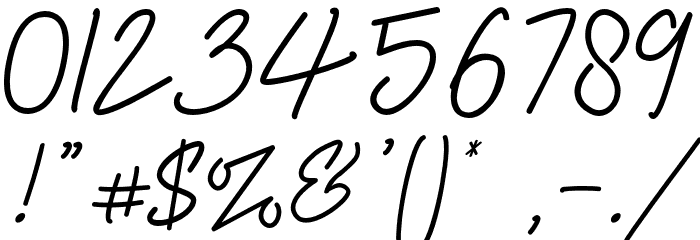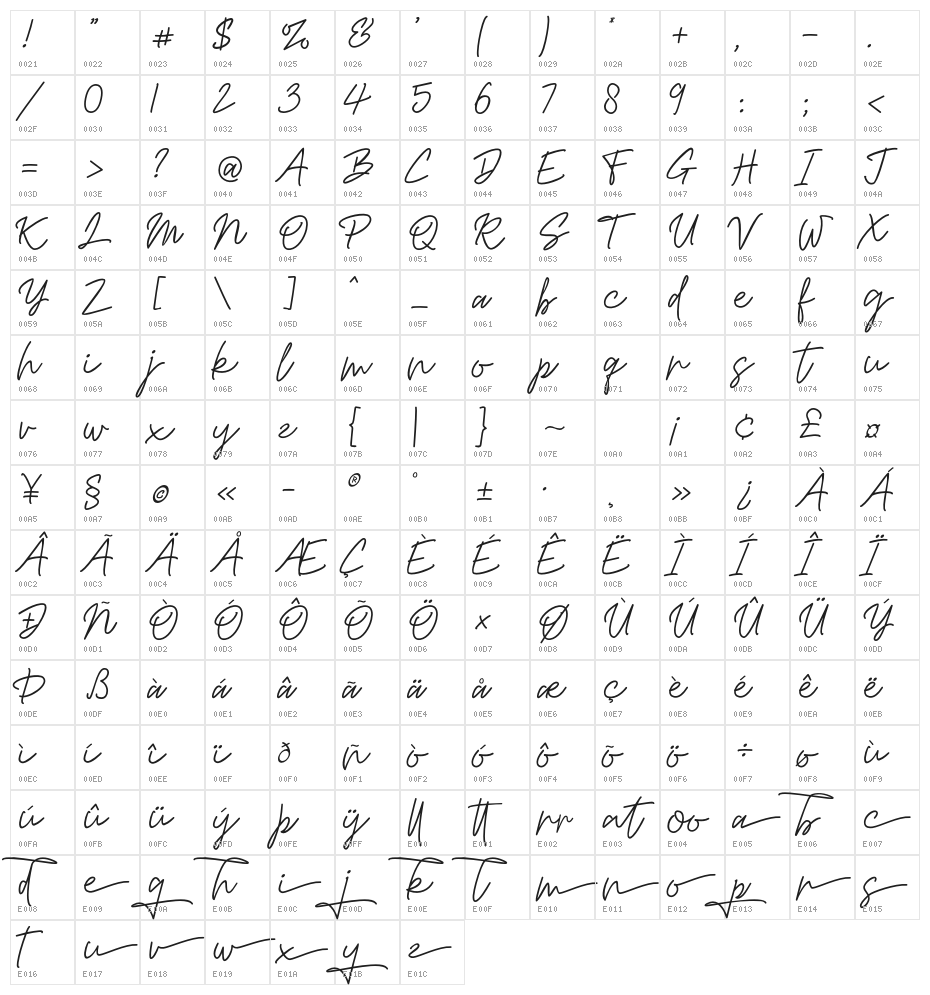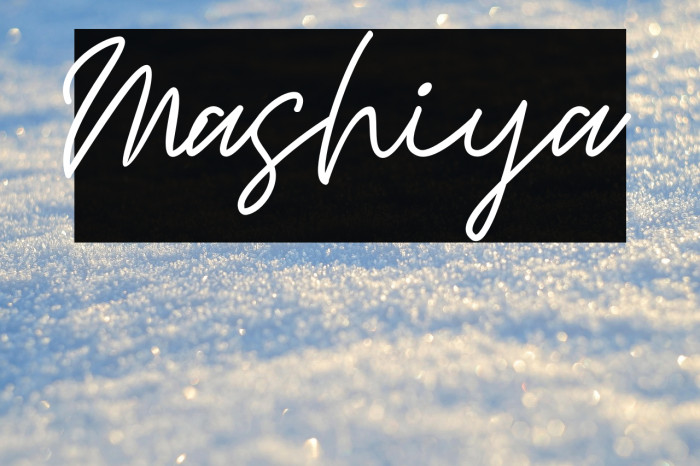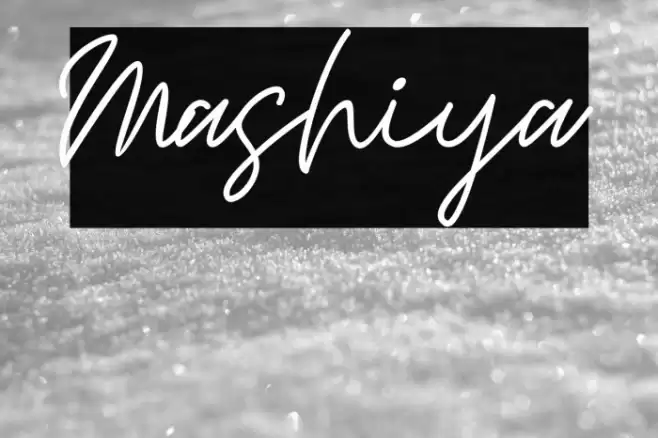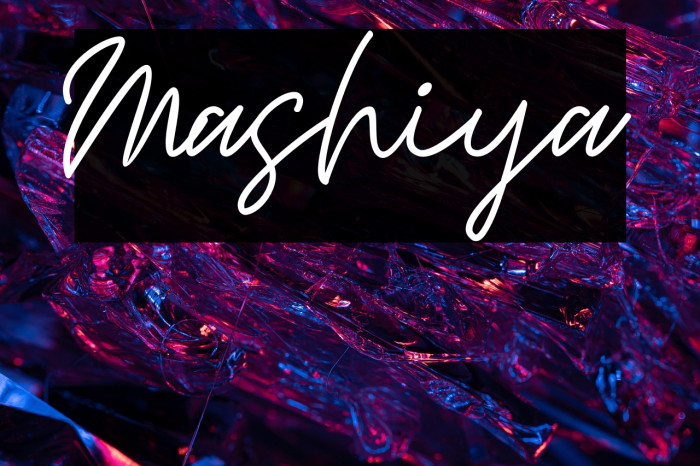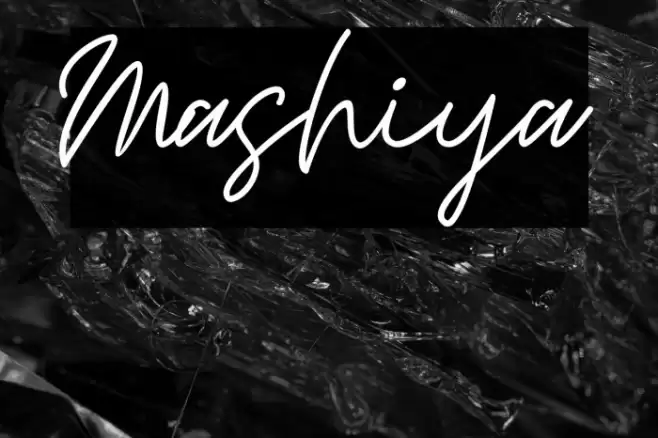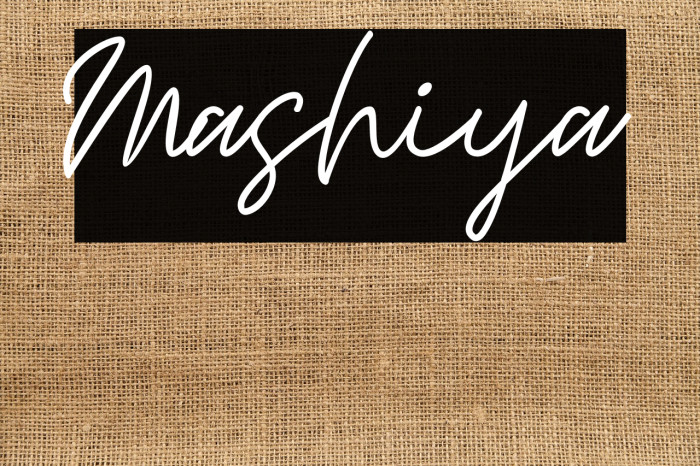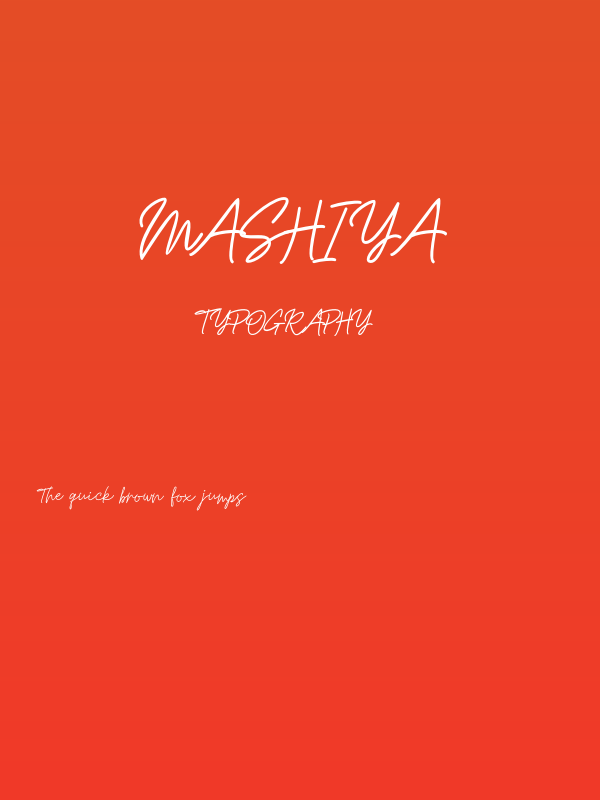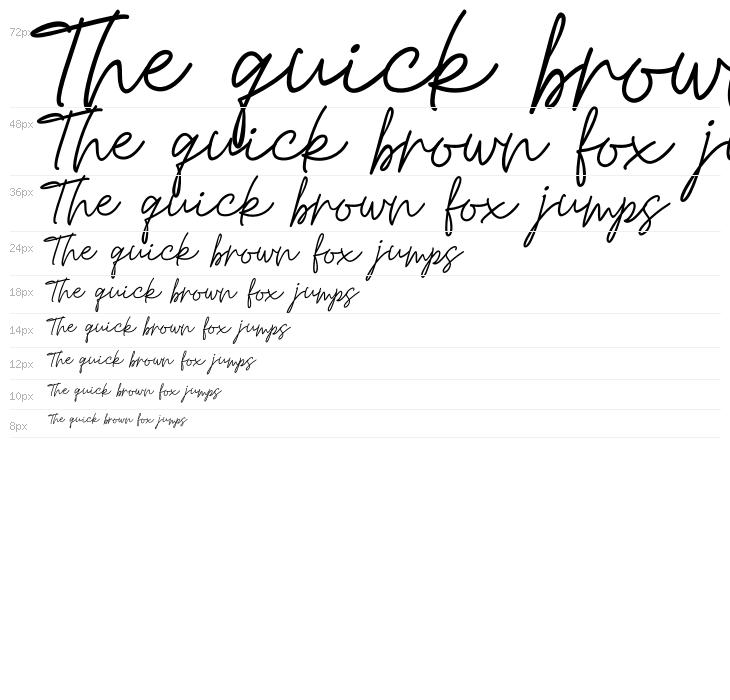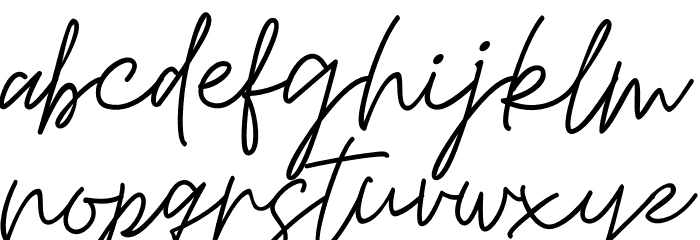
Mashiya Font
Mashiya Description
This font exudes a lively and dynamic energy, characterized by its fluid and cursive script style. The letters are interconnected, creating a seamless flow that mimics natural handwriting. Each character is crafted with a consistent stroke width, giving it a uniform appearance while maintaining a sense of individuality. The uppercase letters are bold and prominent, while the lowercase letters are more delicate, adding a touch of elegance. The numerals and special characters maintain the same fluidity, ensuring a cohesive look across all elements. This font is perfect for projects that require a personal and approachable feel, such as invitations, greeting cards, and branding materials.
| Proposed Projects | Ideal for invitations, greeting cards, branding, and personal projects. |